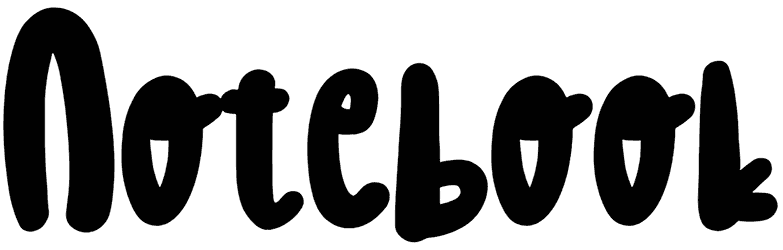
Notebook Font
Notebook font can give a cheerful and friendly makeover to your words. This script font has an approachable and distorted look and transfers a playful feeling to your readers. It is made with bold letters that are written with a thick marker haphazardly. You can use this scrapbook font for cartoon and comedy movie titles, channel banners, magazines, advertisements, gaming, and comic books.